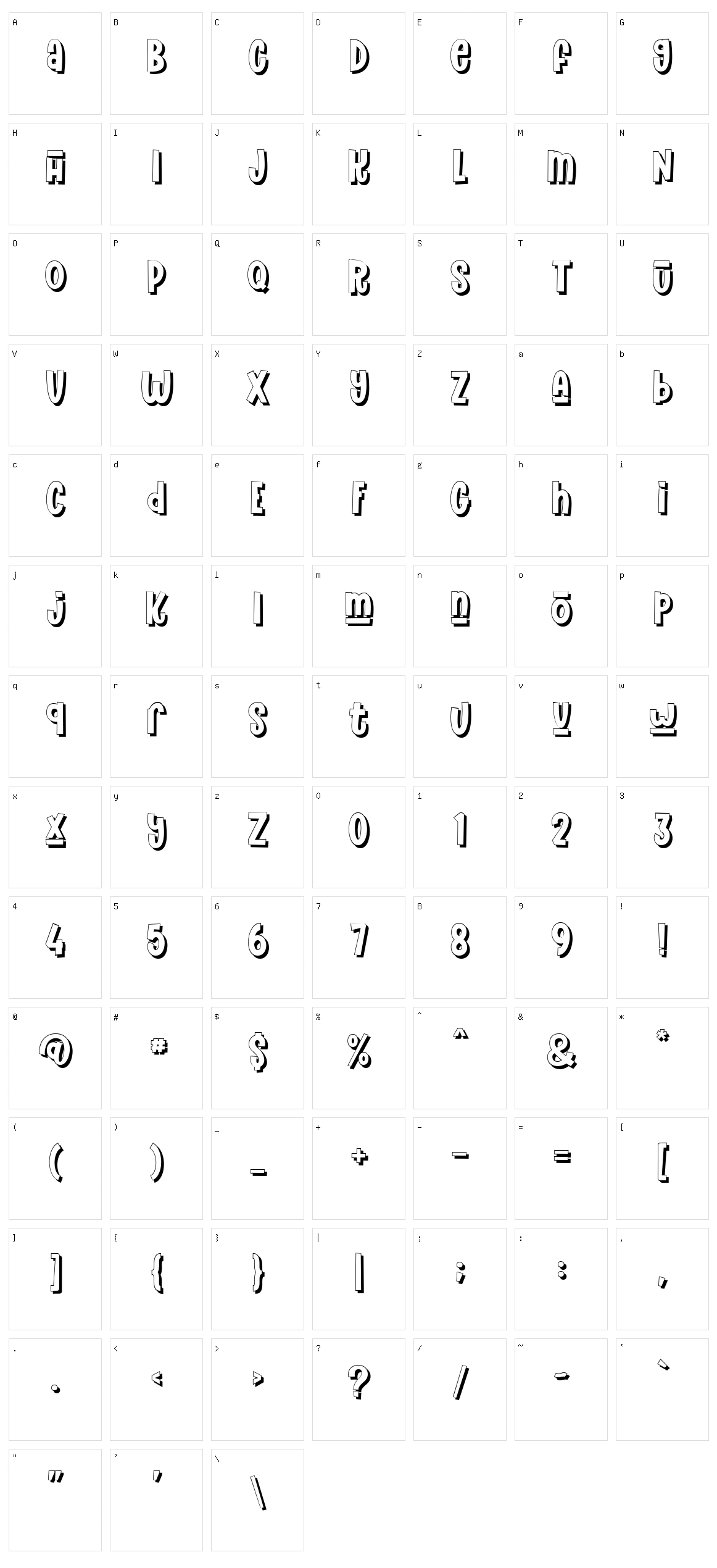
The free font The Funy Time's is carefully designed by Gilar Studio, showcasing a thoughtful balance of creativity and usability and falls under the Cartoon font style. When you download the ZIP file, it contains only 167.25 KB of font files, making it lightweight and quick to download. Please review the license details below to understand permitted usage and distribution rights. If license information is not available, we recommend using this font for personal projects only or contacting the author directly for commercial usage permissions.